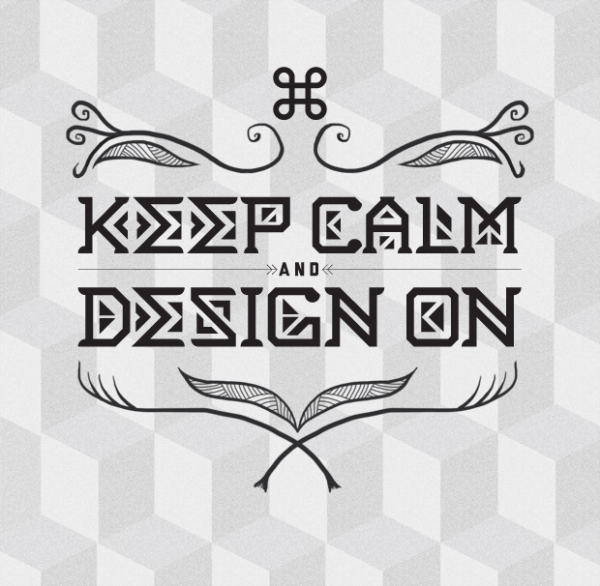
Compound
noun |ˈkämˌpound|
a thing that is composed of two or more separate elements; a mixture
Compound is a concept I designed for a typeface with a unique approach. It is not ideal to write body copy with but it’s sole purpose is primarily used for headings, posters, or any other type of artistic media. When the individual letters are placed together, they’re made to fit like a puzzle, giving an end result of a whole.
The Typeface consists of only 45° and 90° angles, strictly using a 72×72 pixel grid. The three primary shapes being, circles, squares and triangles were used to compose this typeface, keeping it as simplistic as it possibly can be but overall giving it that complex appearance.